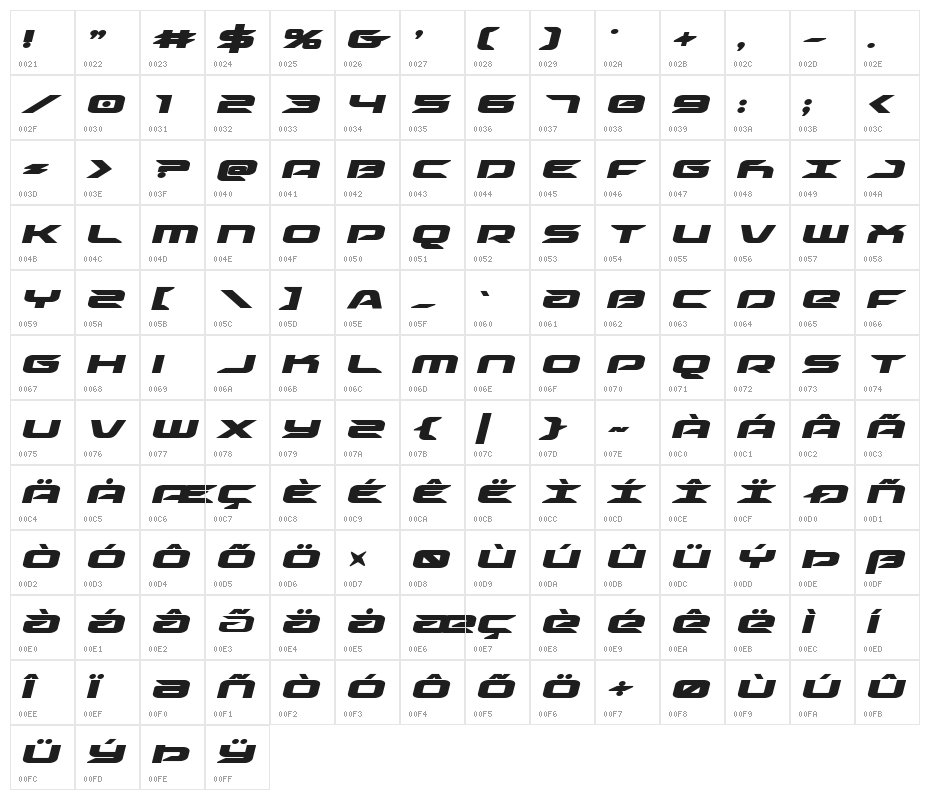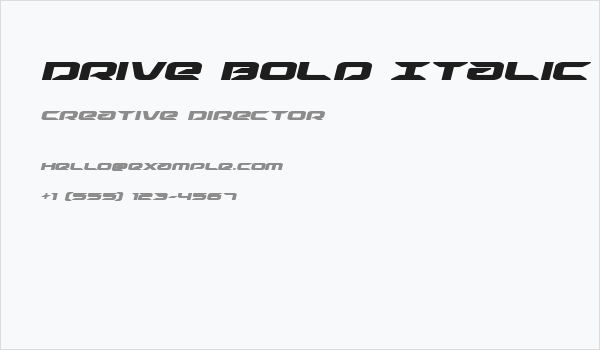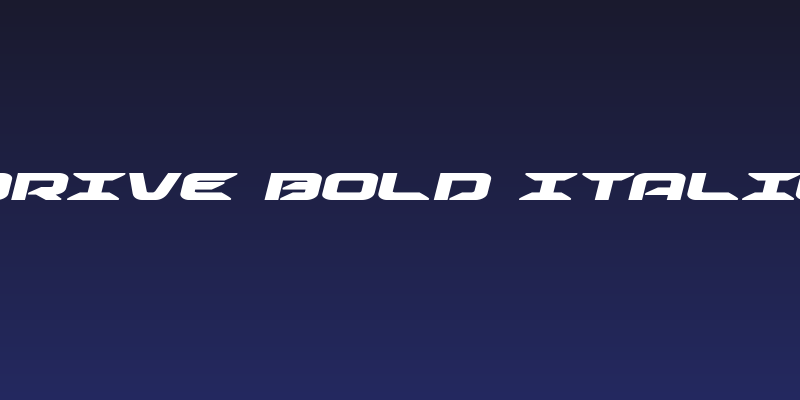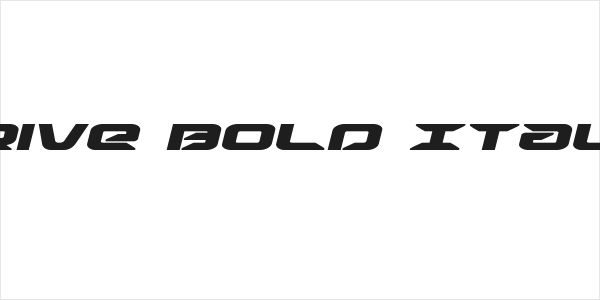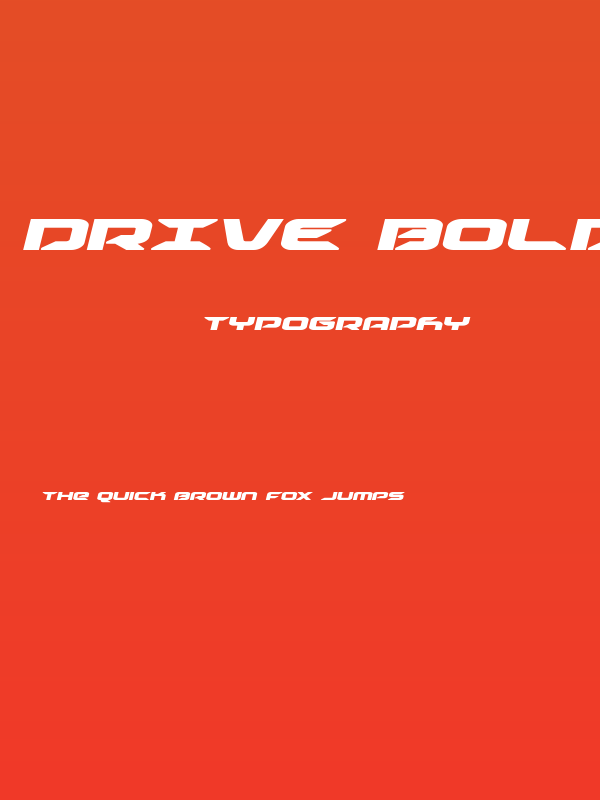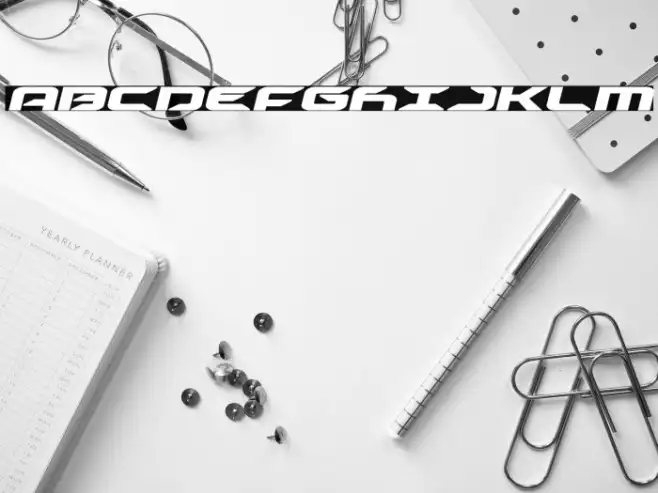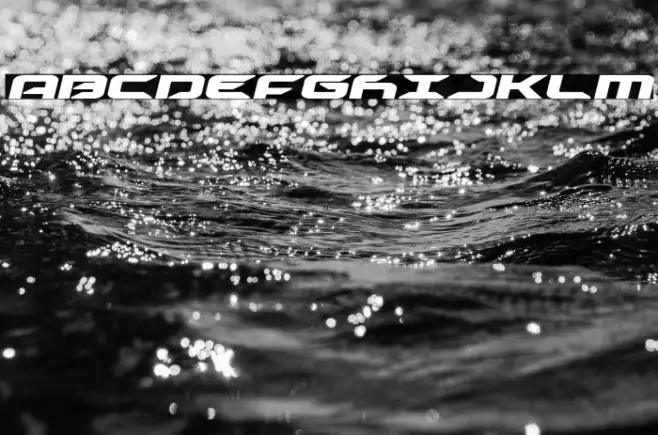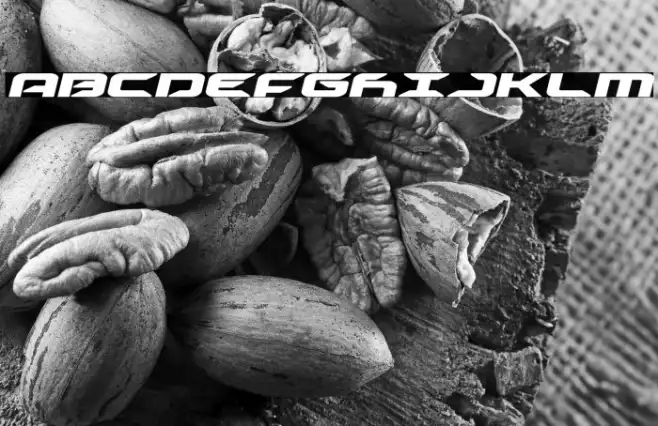
Drive Bold Italic Font
Drive Bold Italic Description
This font exhibits a bold and italicized style with a futuristic and dynamic appearance. The characters are designed with sharp angles and a forward-leaning stance, giving a sense of motion and speed. The uppercase and lowercase letters maintain a consistent style, with the lowercase slightly smaller but equally bold. Numbers and special characters follow the same design principles, ensuring uniformity across all glyphs. The font's unique style makes it stand out, suitable for projects that require a modern and edgy look.
| Proposed Projects | Ideal for automotive branding, sports team logos, video game titles, and sci-fi themed posters. |